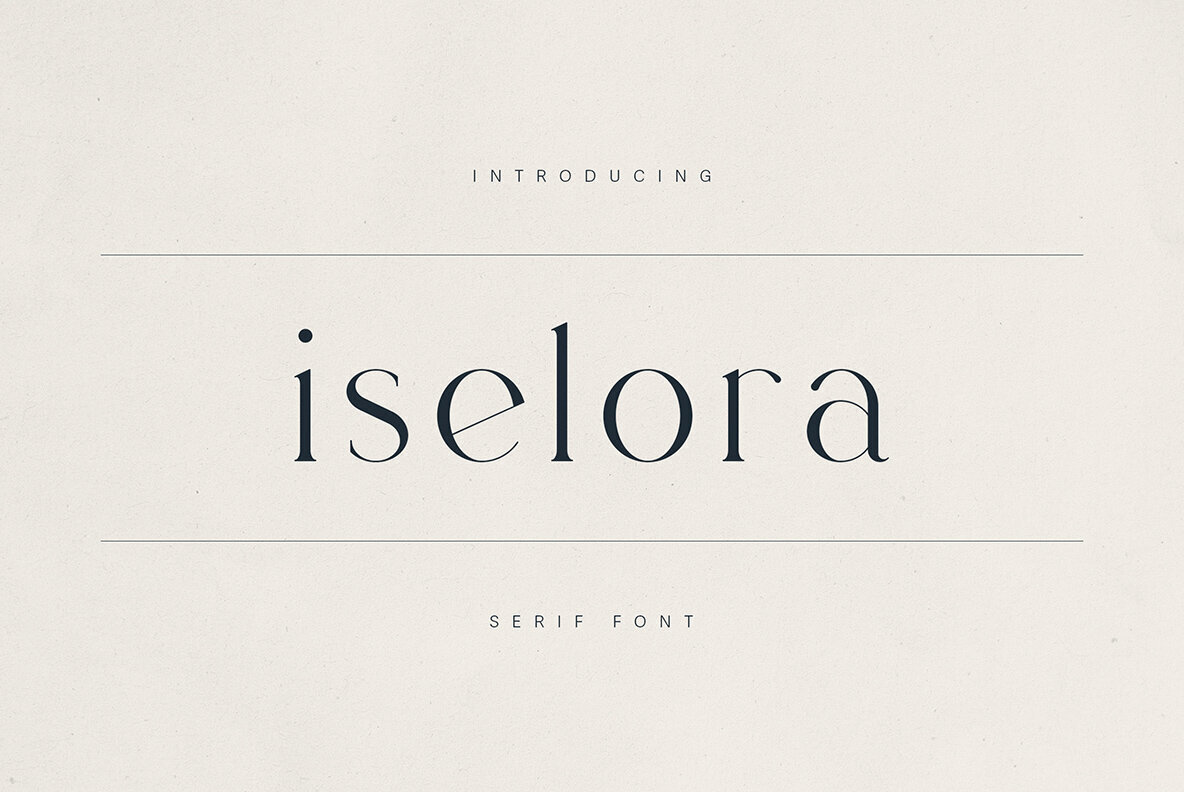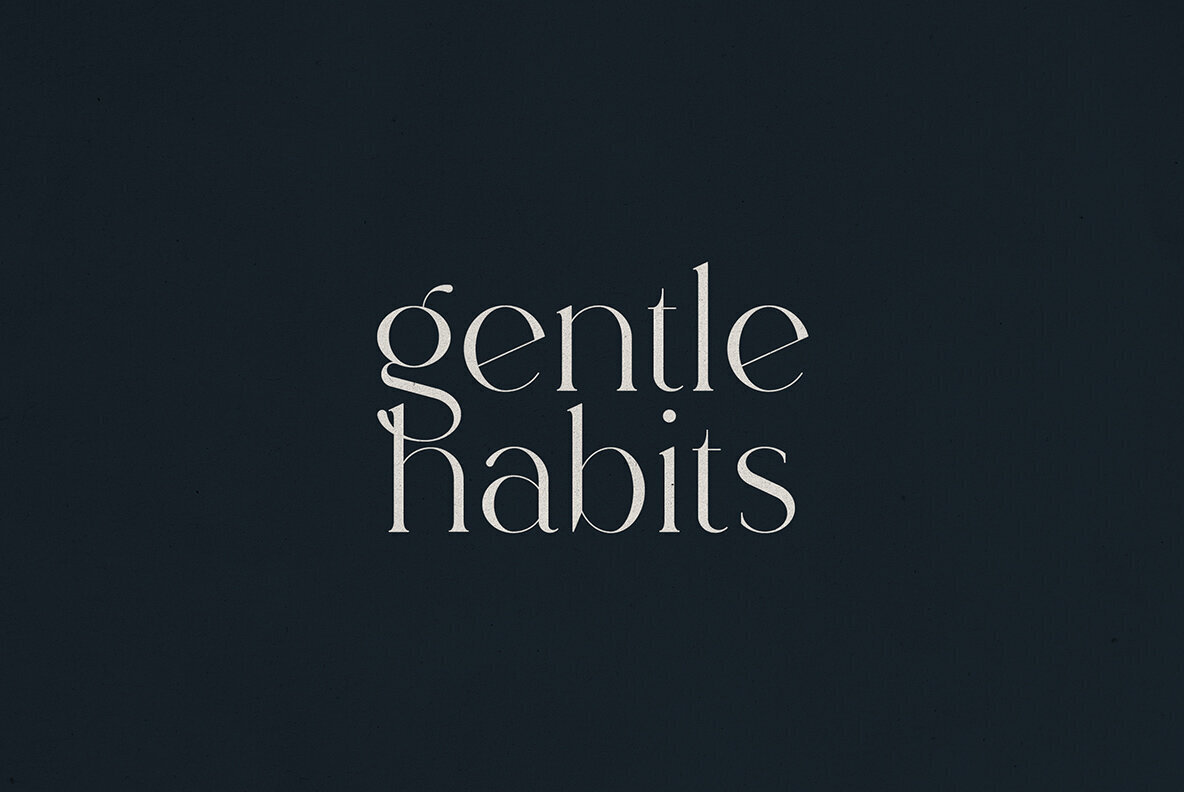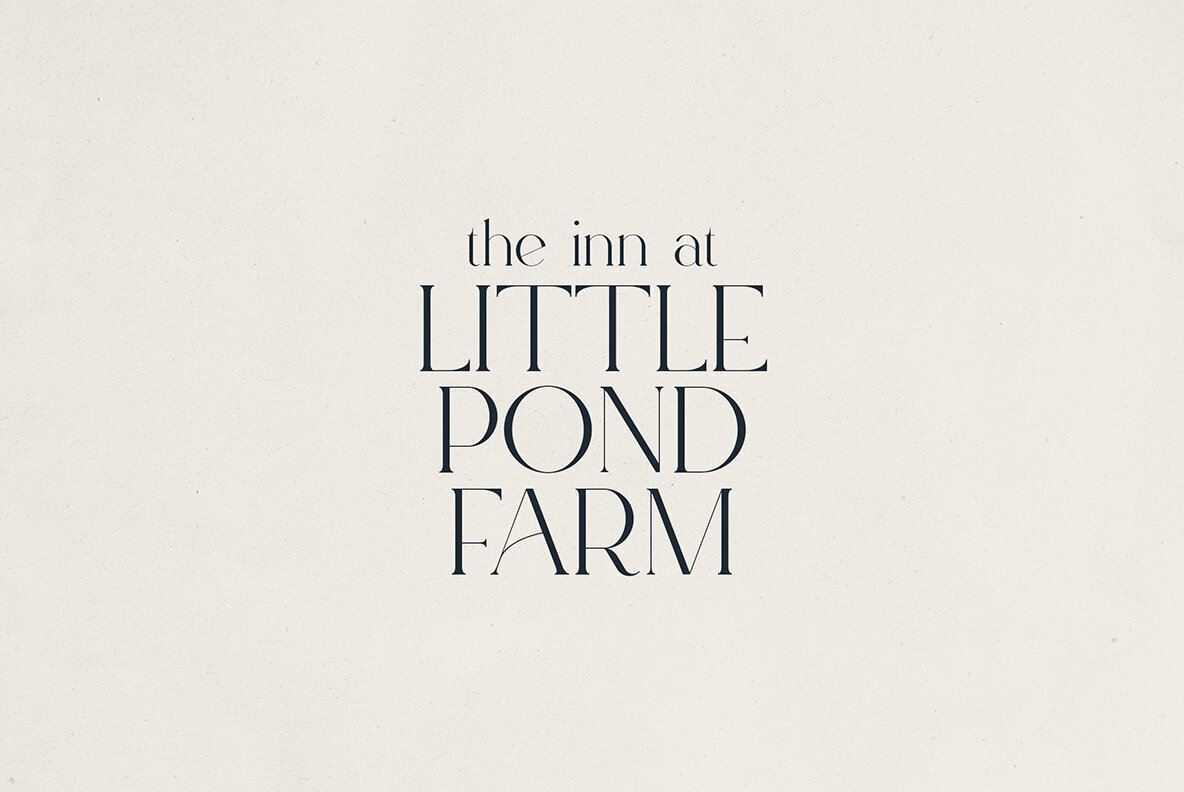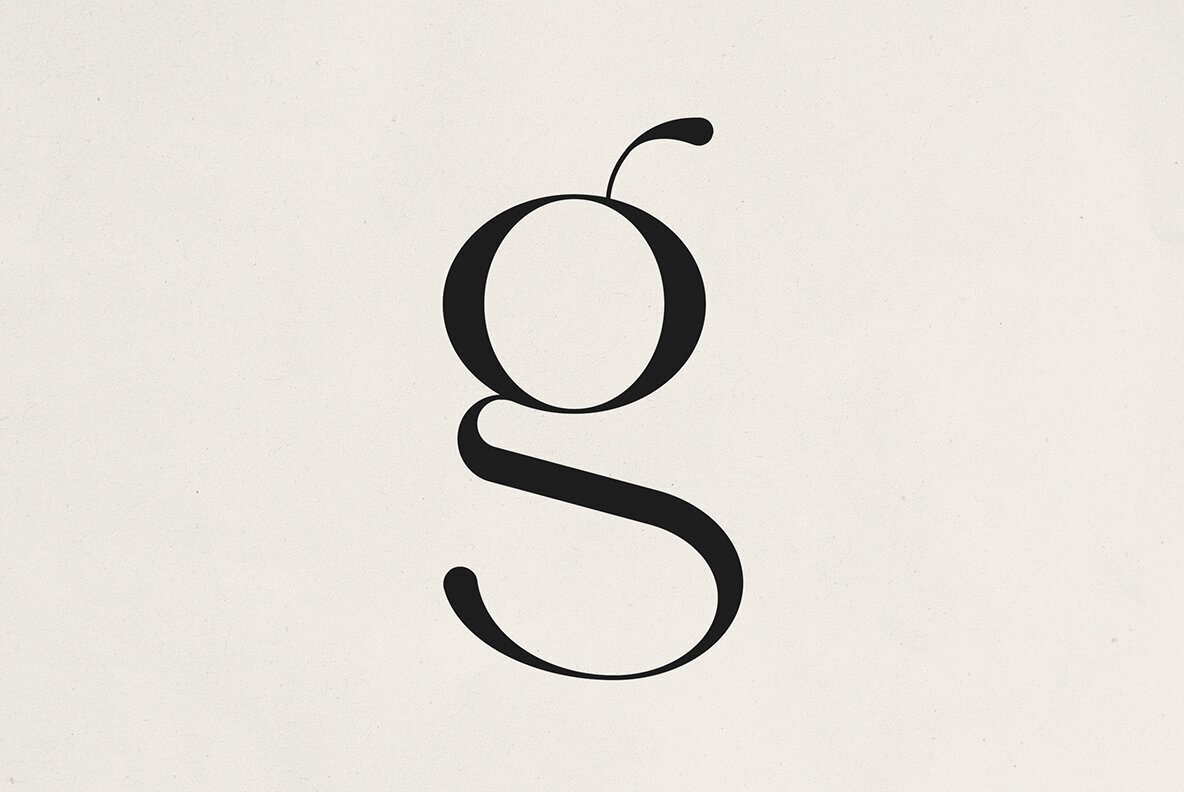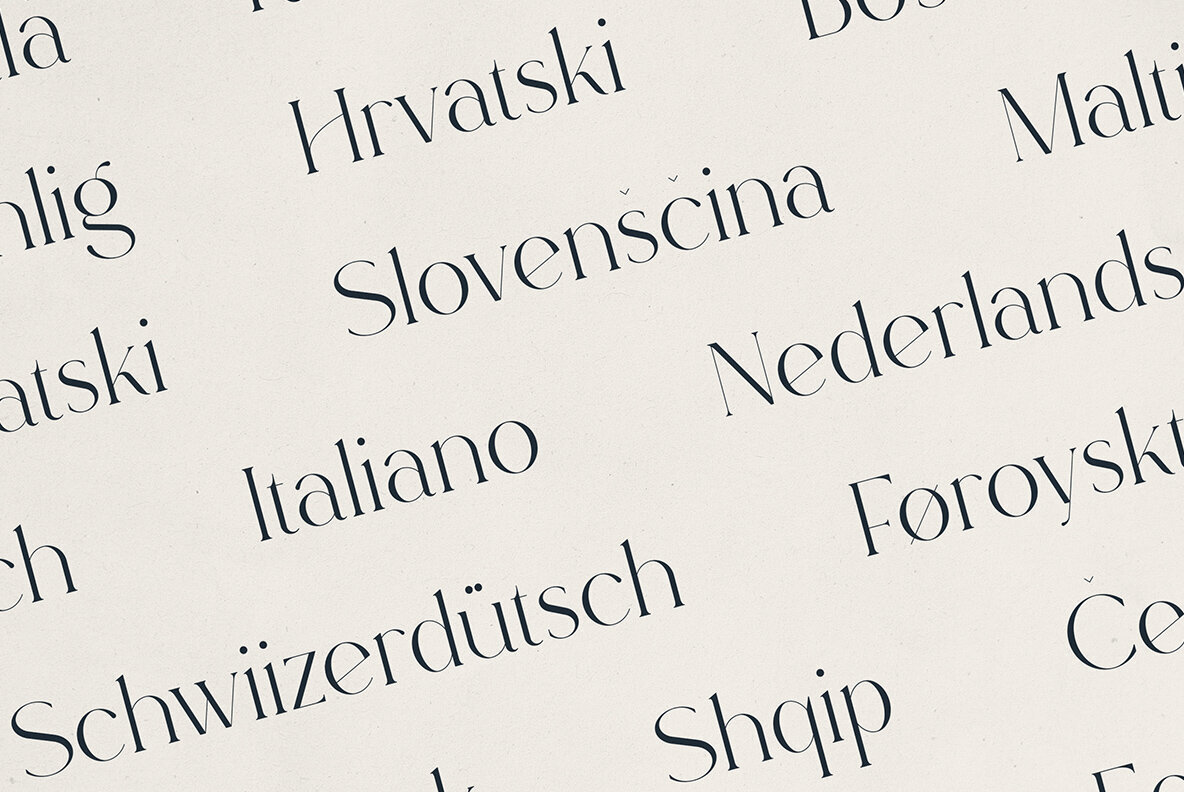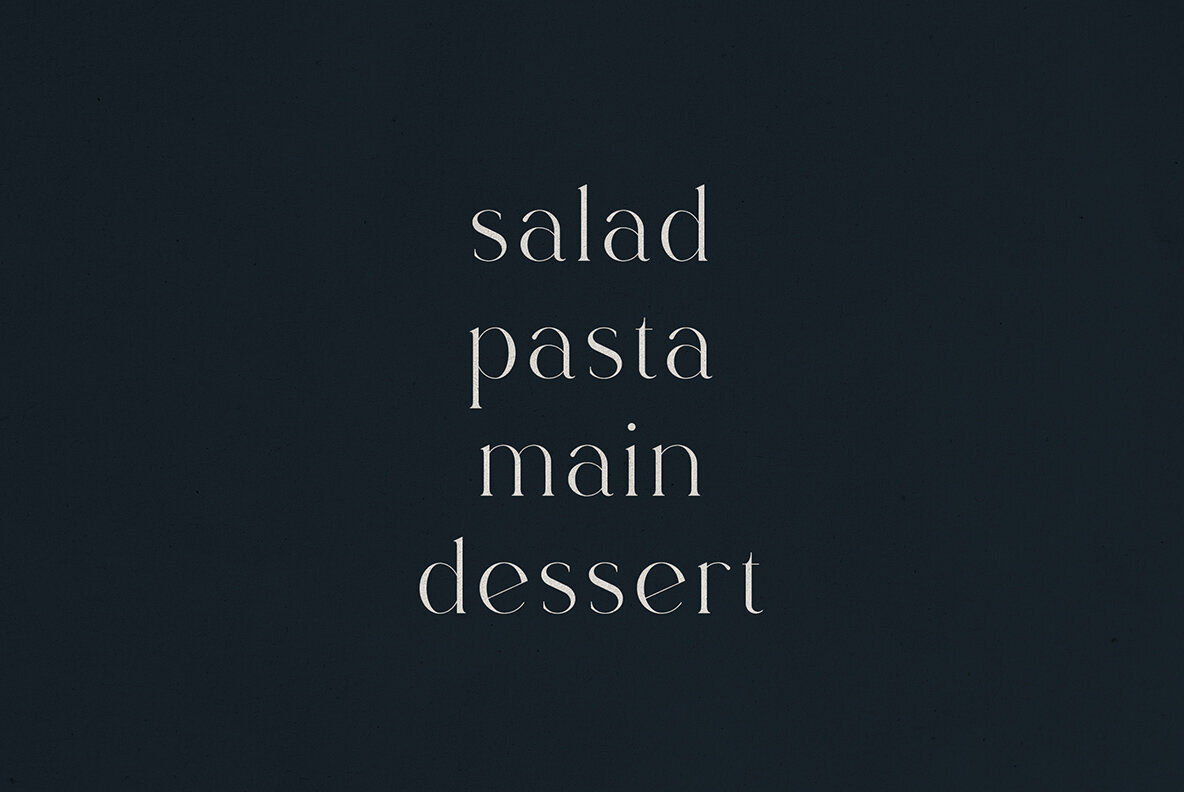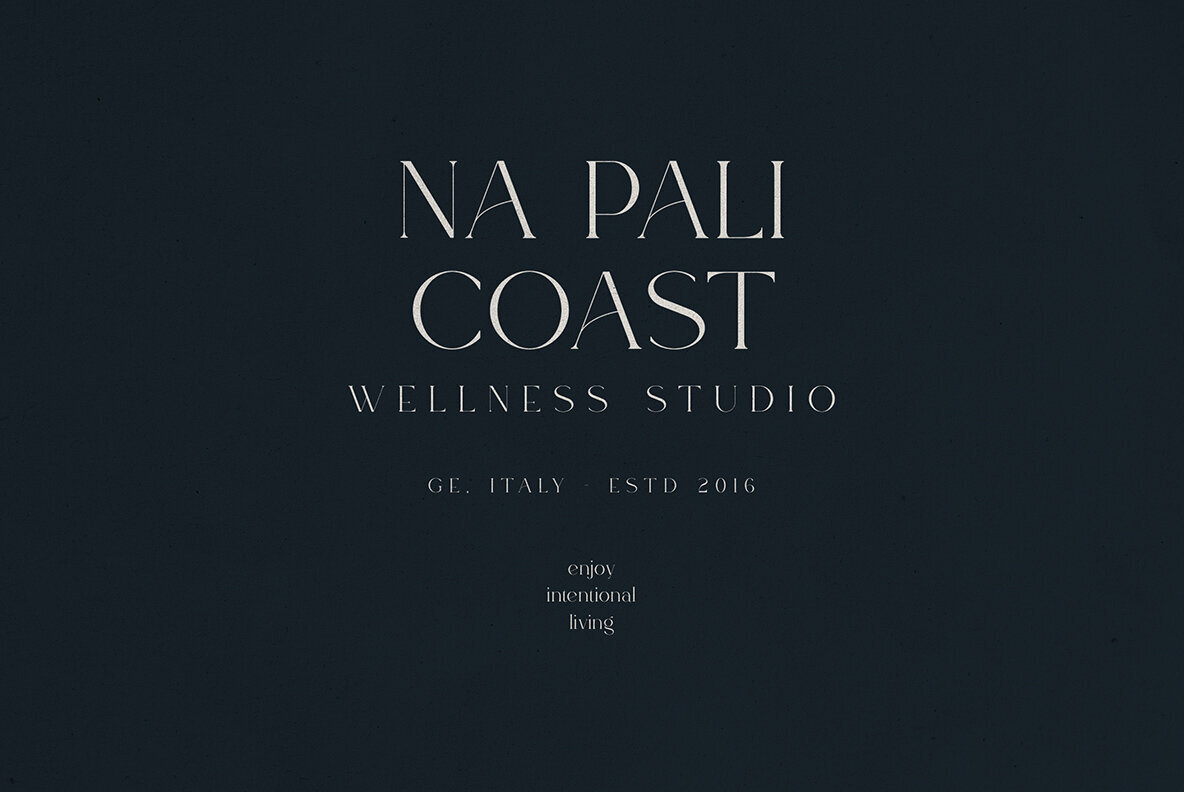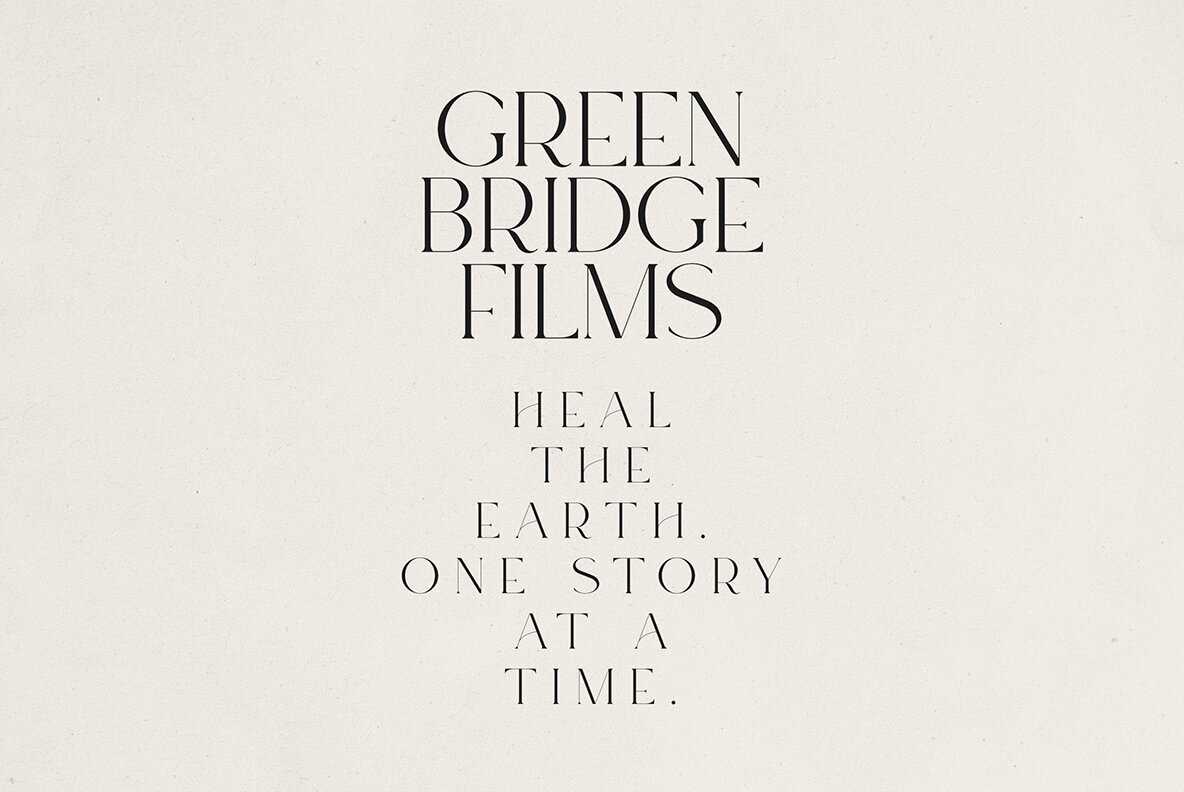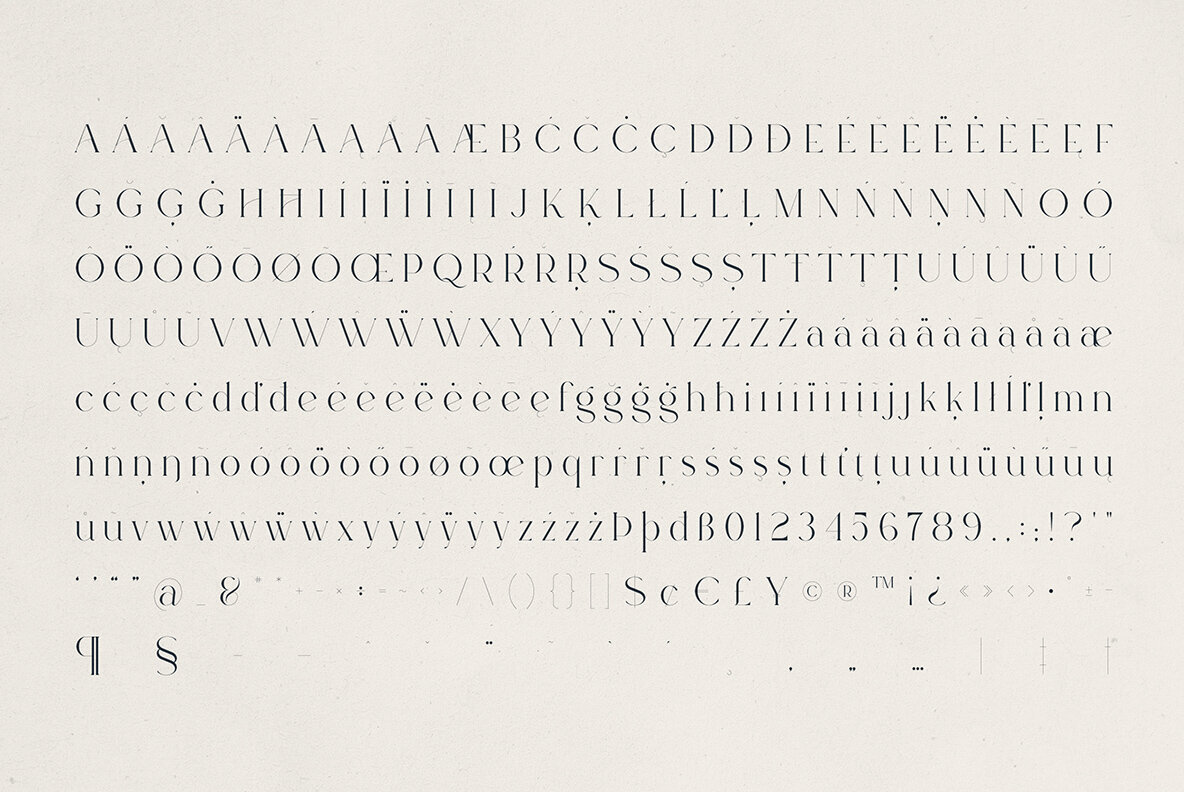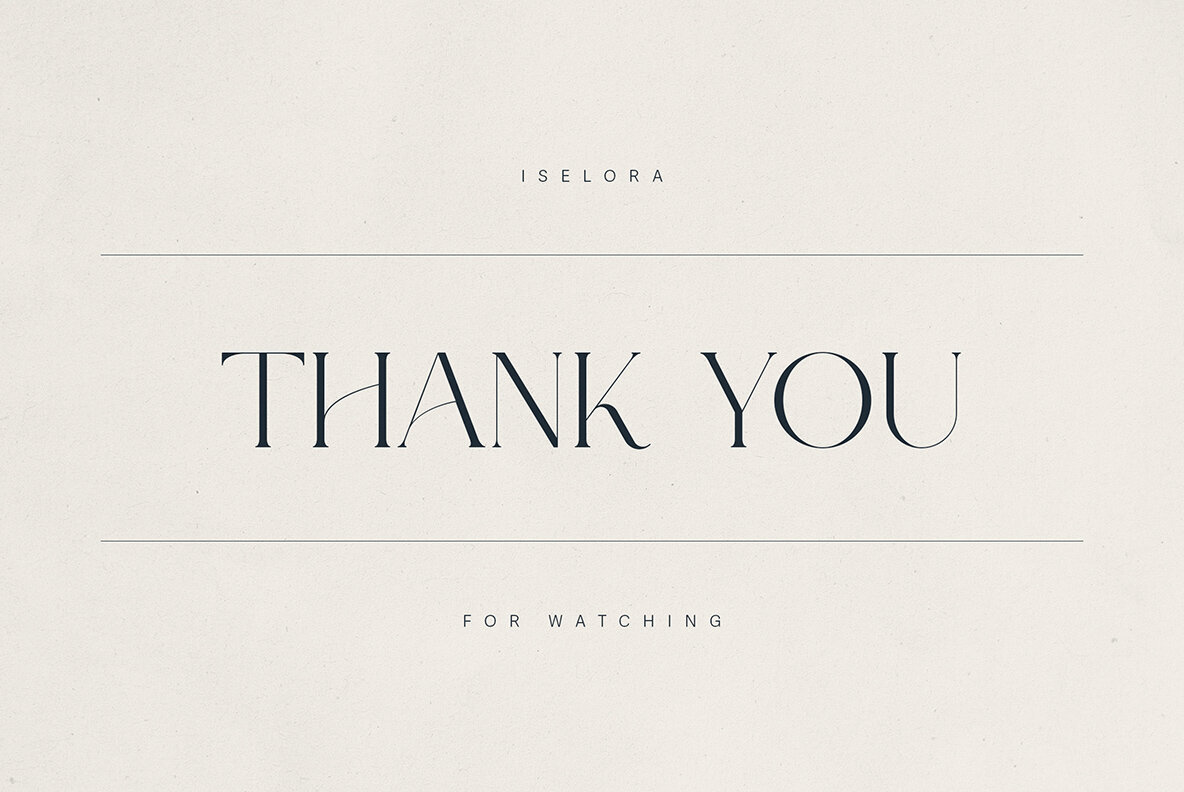
Iselora Font
Iselora Regular
Iselora is a masterful modern serif font, intertwining classic elegance with a hint of contemporary flair. Its high-contrast design, graced with delicate curves and sharp serifs, infuses any project with a sense of calm sophistication. Perfectly suited for brands, editorial layouts, wellness labels, lifestyle products, and premium packaging, Iselora is crafted for those with an eye for artistic typography. Its versatile use extends to logos, invitations, brand identities, and refined display titles, endowing each with poise and intentional beauty. Language support includes Afrikaans, Albanian, Czech, Danish, Dutch, English, Finnish, French, German, Italian, Portuguese, Spanish, Swedish, Turkish, and many more, making Iselora an excellent choice for a wide range of design projects across various regions.Iselora: A Sophisticated Serif for Modern Elegance